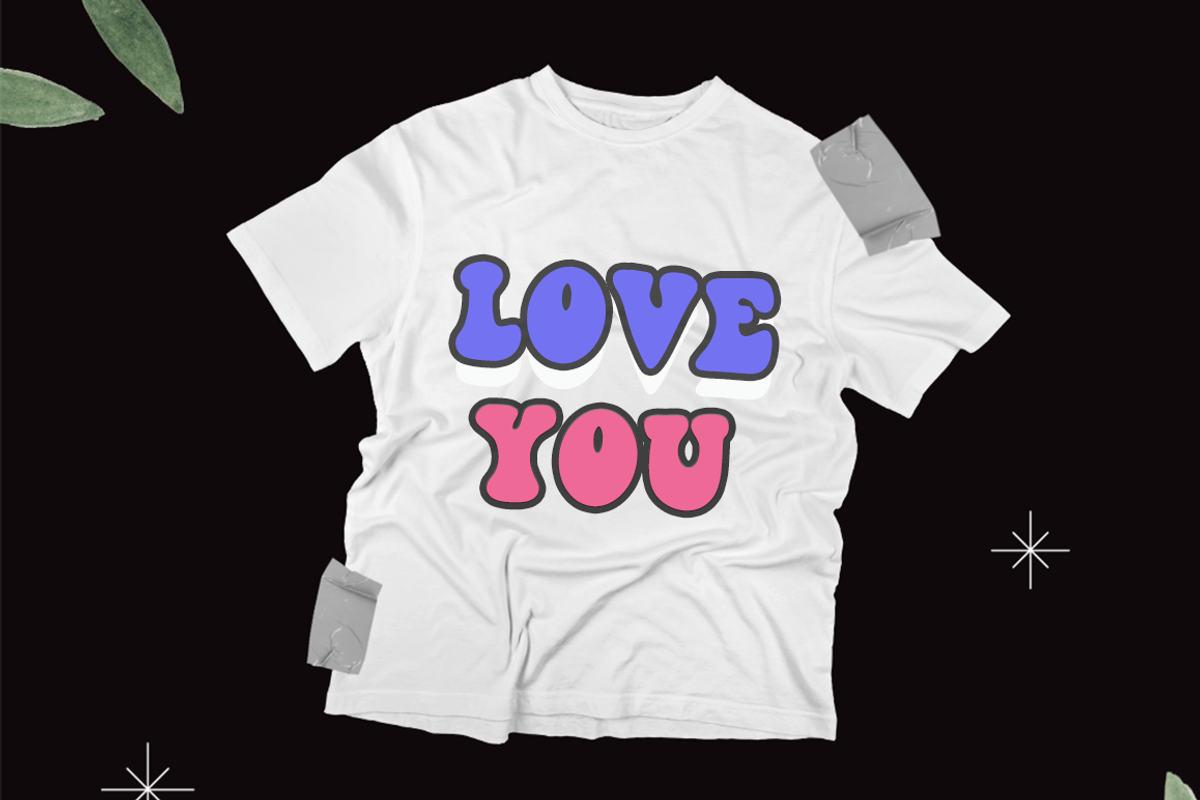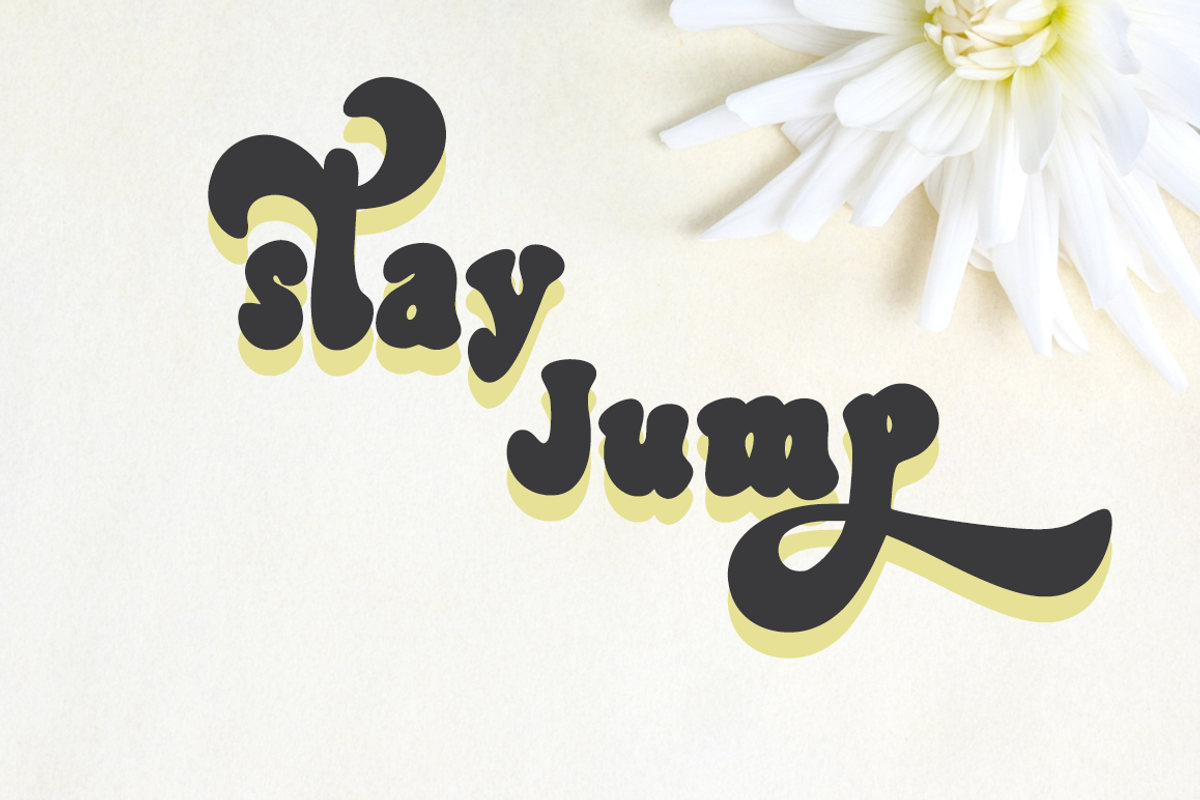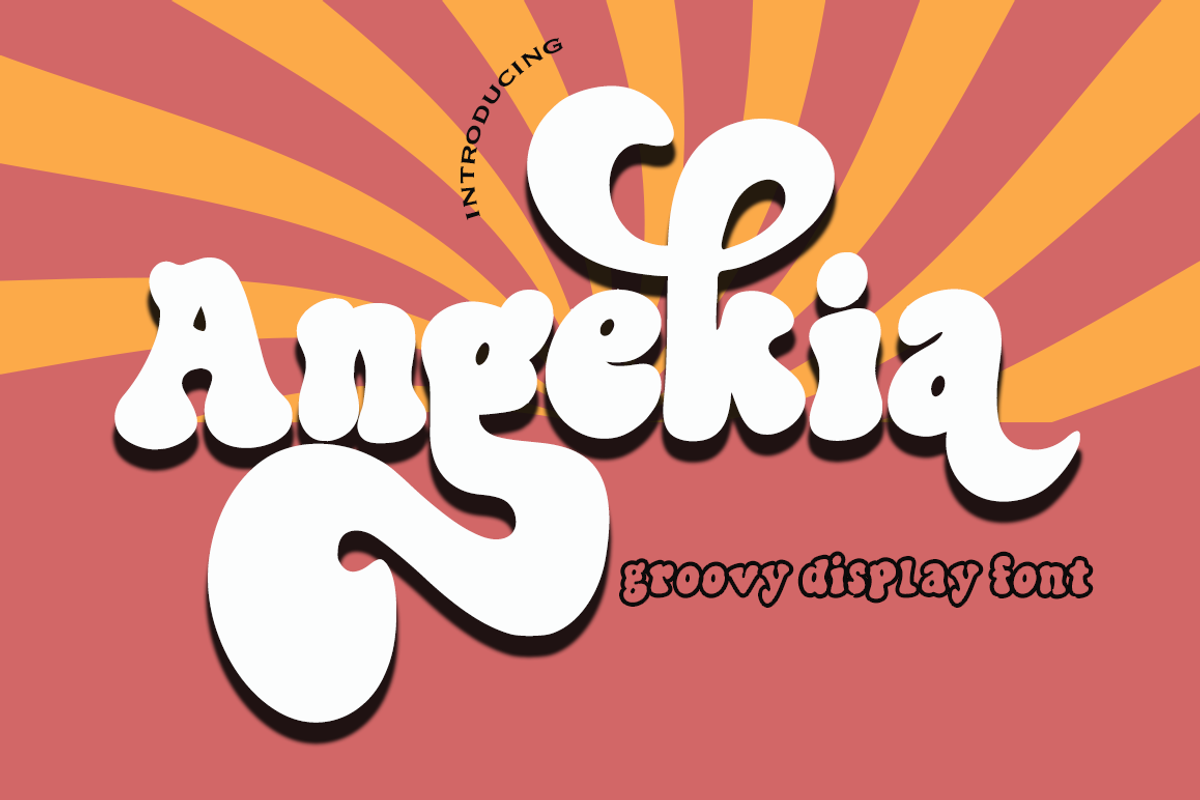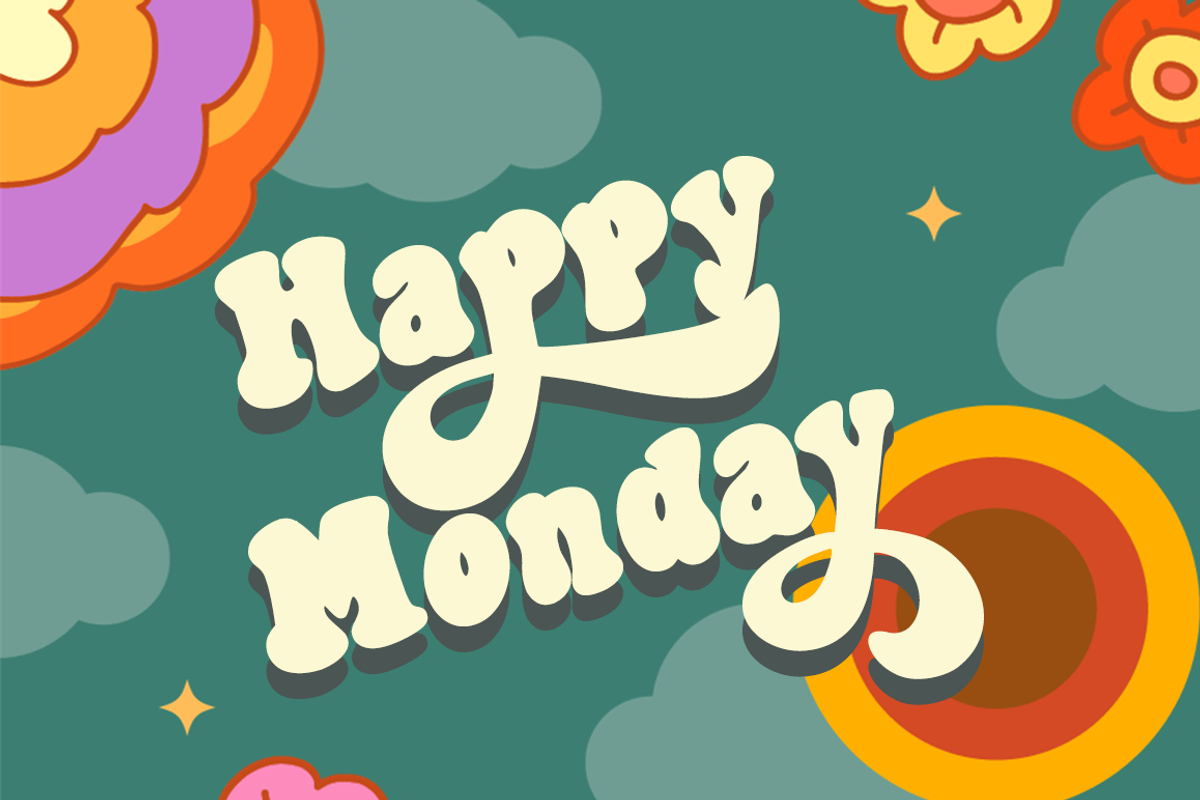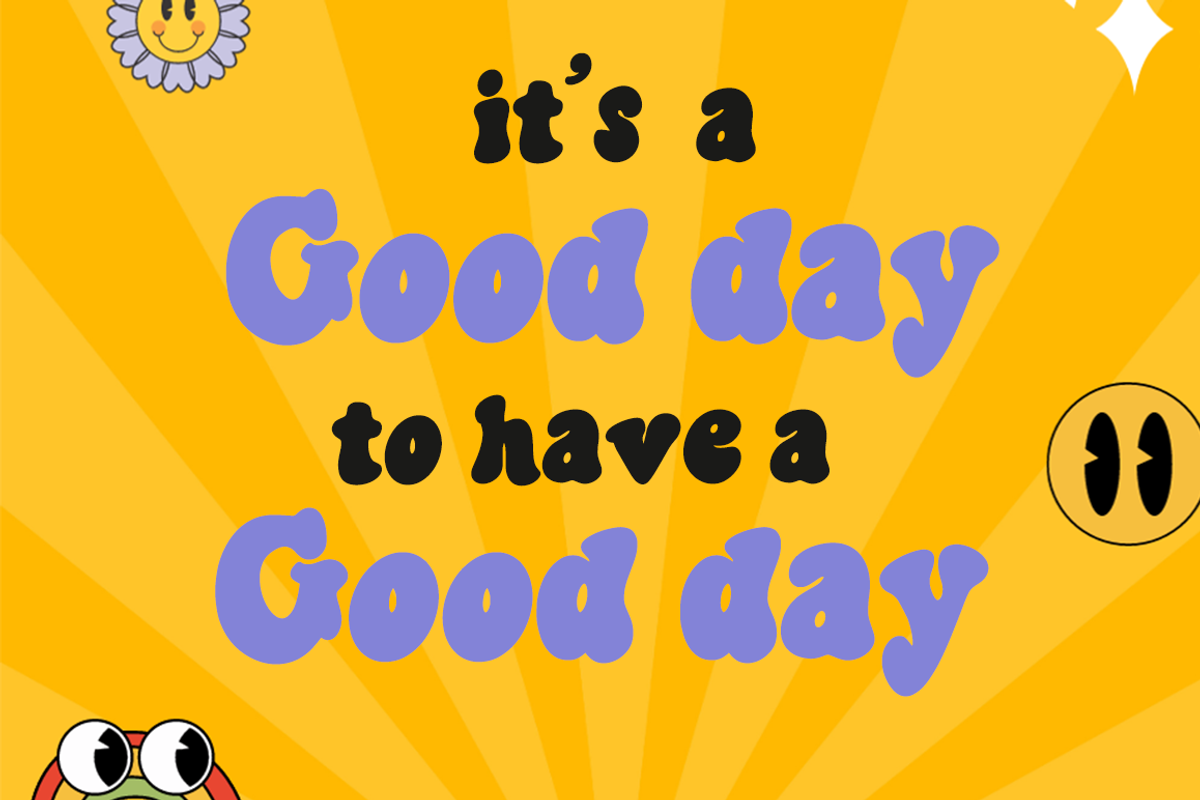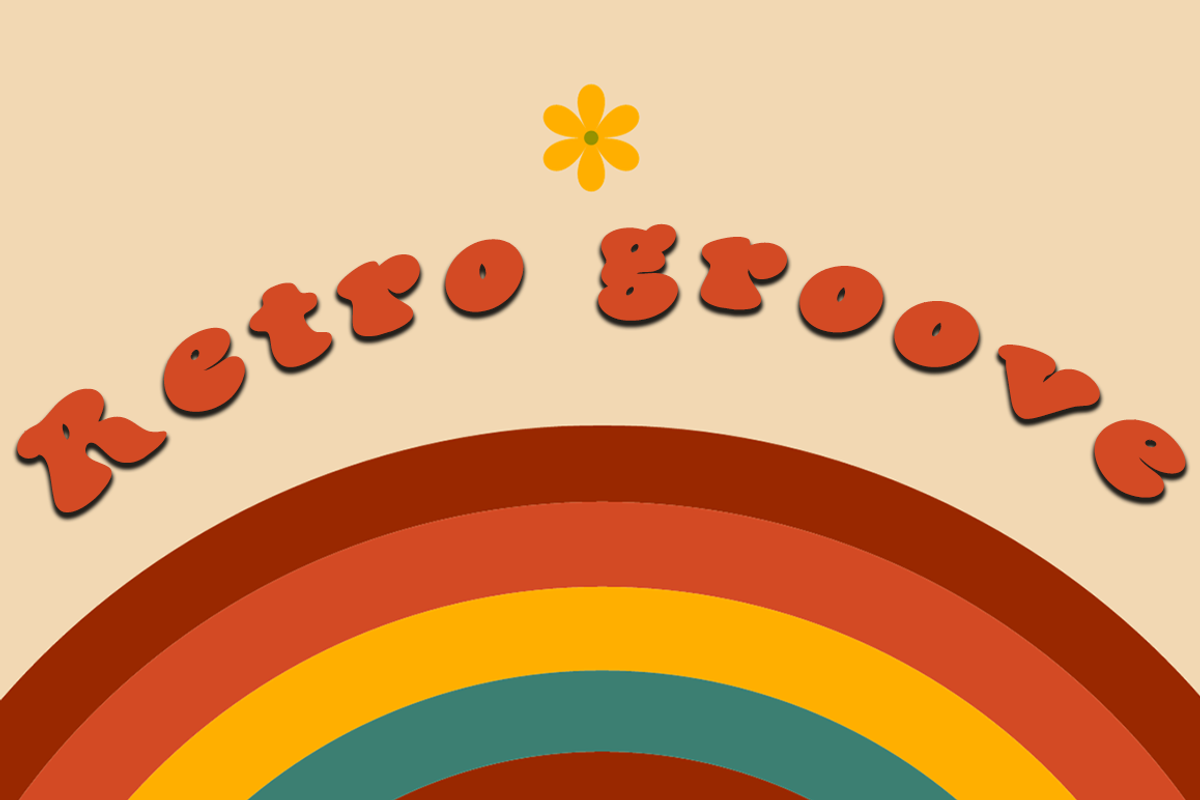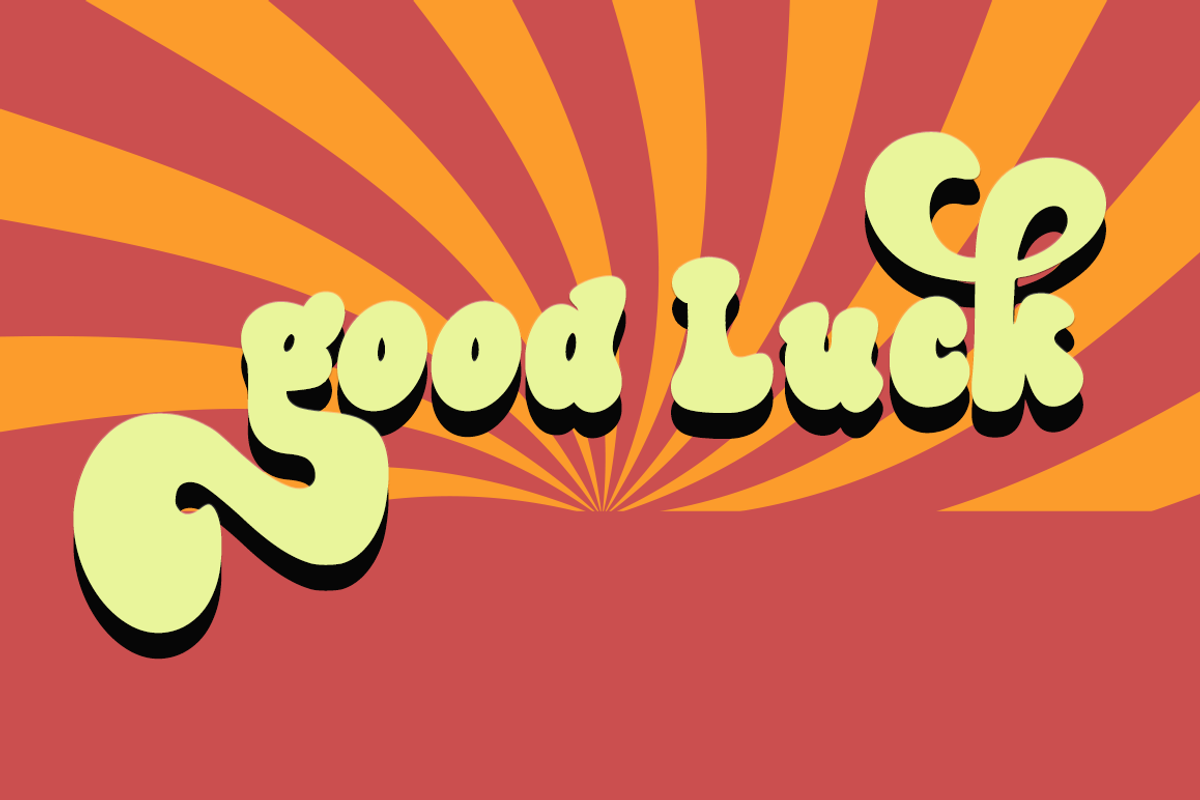
Angekia
Angekia a groovy fonts, including Regular. This font is casual and beautiful . It can be used for various purposes. such as logos, product packaging, wedding invitations, branding, headlines, signage, labels, signatures, book covers, posters, quotes, and many more.